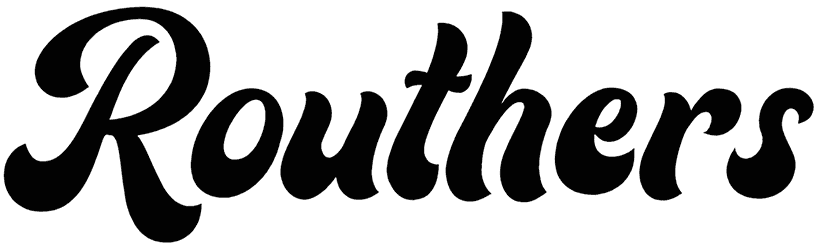
Routhers Font
The Routhers font, with its cursive lines, is in the category of diner fonts. This bold old-school font is for those who like to have nostalgic memories of the nineties and eighties eras and use it in designing postcards, various packages, and arcade games. If you’ve found this freebie helpful, make sure to check out our website for more useful products like this.